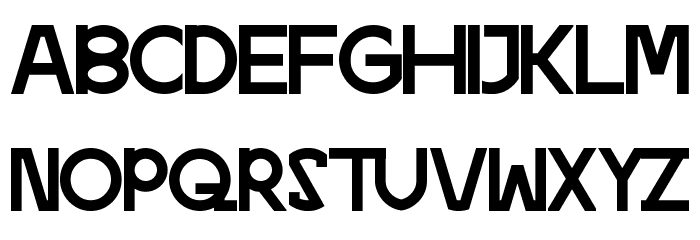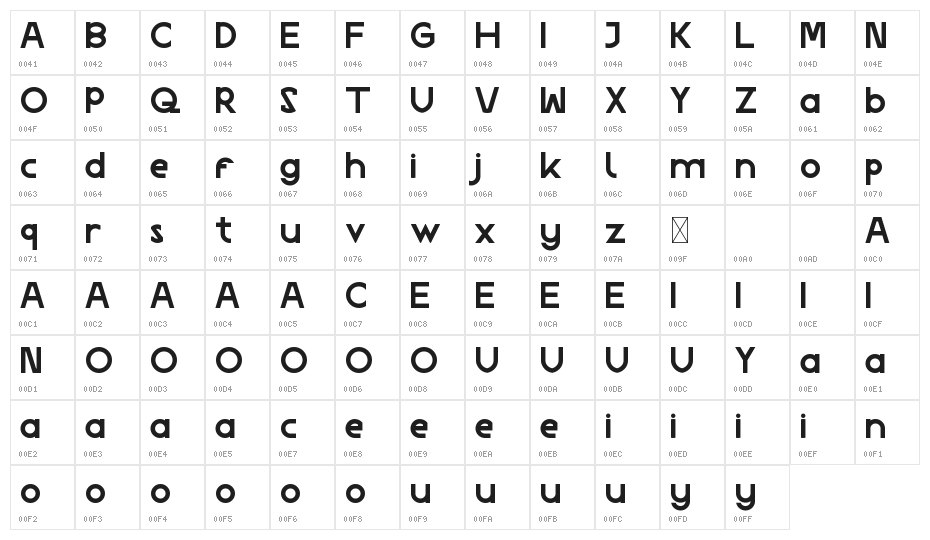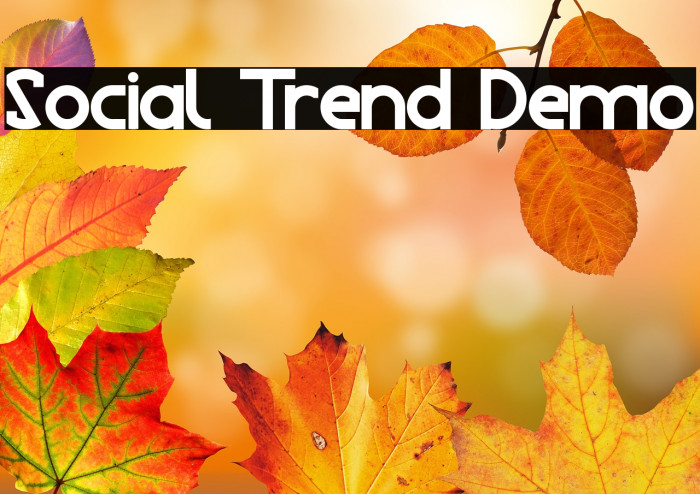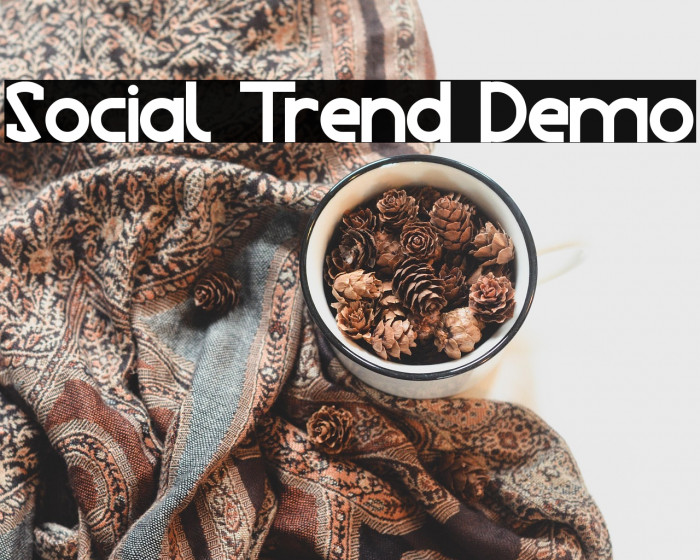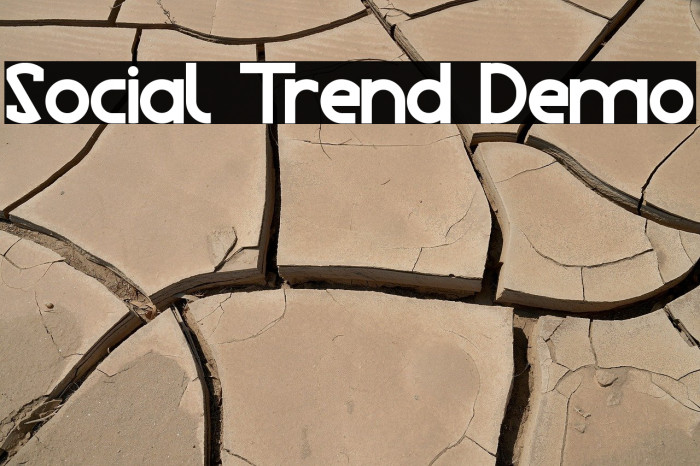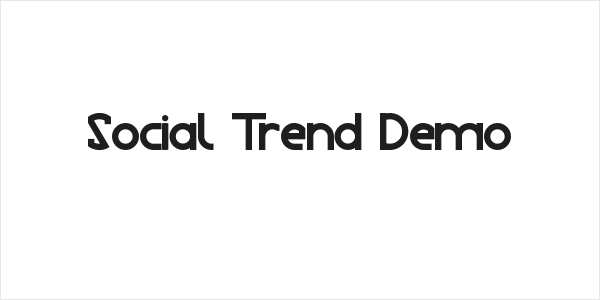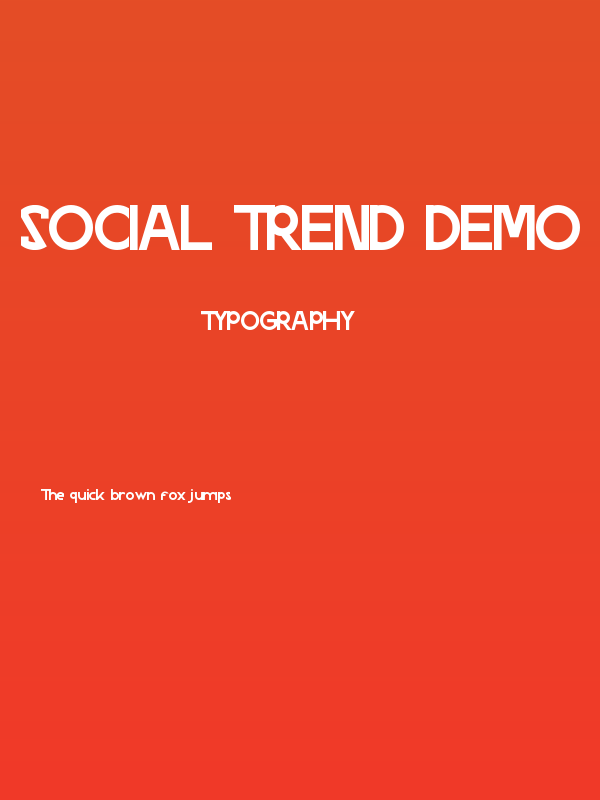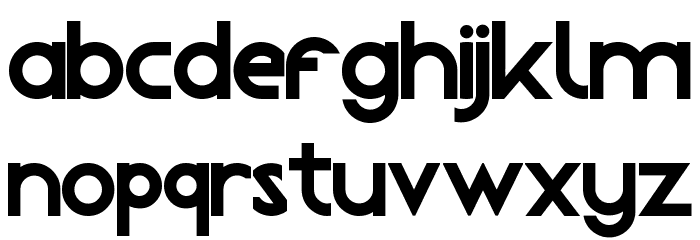
Social Trend Demo Font
Social Trend Demo Description
This font features a bold and geometric design, characterized by its strong, clean lines and a modern aesthetic. The uppercase letters are particularly striking with their uniform height and width, creating a sense of balance and stability. The lowercase letters maintain this geometric style, with rounded edges that soften the overall look. The font includes a full set of numerals and a selection of special characters, ensuring versatility for various design needs. Its boldness makes it highly legible, even at smaller sizes, while the geometric shapes add a contemporary flair. This font is ideal for projects that require a modern and assertive typeface, such as branding, advertising, and digital media.
Use CaseHeadlines, Logos, Branding
Proposed ProjectsIdeal for branding, advertising, digital media, and headlines.